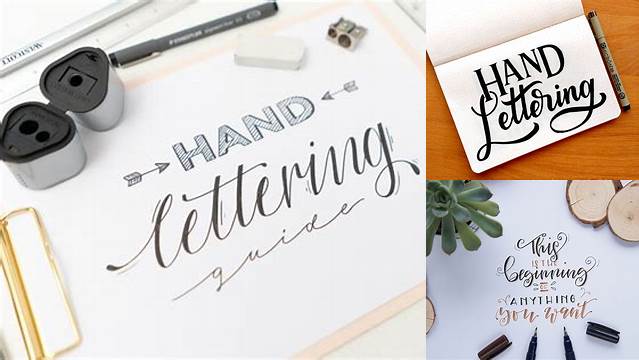
Hand Lettering Fonts: A Comprehensive Guide
Understanding the Appeal of Hand Lettering Fonts
Hey guys, let's dive into the amazing world of hand lettering fonts! You know, those gorgeous, artistic styles that make text look like it was meticulously drawn by hand. It’s not just about picking a font; it’s about evoking a feeling, a personality, and a sense of craft. In a digital age where everything can feel a bit uniform, hand lettering fonts offer a breath of fresh air. They bring warmth, authenticity, and a unique human touch to designs. Think about wedding invitations, custom logos, or even just a heartfelt quote you want to share online – the right hand lettering font can elevate the entire message. What’s so cool about them is their sheer variety. You’ve got elegant scripts that flow like a graceful dance, bold brush lettering that commands attention, quirky and playful styles that add a touch of fun, and vintage-inspired designs that transport you back in time. Each style tells its own story and sets a distinct mood. This is why designers and creatives are constantly drawn to them. They offer a way to break free from the rigid structure of typical digital fonts and inject a dose of personality and artistry. So, whether you're a seasoned designer looking to add some flair to your projects or a beginner just starting to explore the possibilities, understanding the diverse world of hand lettering fonts is your first step to creating truly memorable and engaging visuals. It’s all about finding that perfect visual voice that resonates with your audience and perfectly captures the essence of your message. Let’s get exploring!
Exploring Different Styles of Hand Lettering Fonts
So, we know hand lettering fonts are awesome, but let's break down the different vibes they give off, yeah? It’s like having a whole wardrobe of typefaces to choose from for any occasion. First up, we've got the script fonts. These are the divas, the elegant ones. They can be super formal, like a beautiful cursive wedding invitation, or more casual and bouncy, like something you’d doodle in your journal. Think swooping ascenders and descenders, delicate flourishes, and a general feeling of flow and grace. They’re perfect for adding a touch of romance or sophistication. Then there are the brush lettering fonts. These guys are bold and expressive. Imagine a paintbrush making thick and thin strokes, full of energy and movement. They can range from super clean and modern to more textured and distressed, giving a really dynamic and artistic feel. They’re fantastic for making a strong statement, like for a band logo or a motivational poster. Don't forget about display fonts, which is a broad category but often includes unique, stylized hand-drawn lettering meant to catch the eye. These are often playful, quirky, or have a very specific theme, like vintage signs or cartoonish styles. They're not usually for long blocks of text, but they absolutely shine when you need to highlight a title or a key phrase. And finally, let’s touch on monoline vs. variable stroke fonts. Monoline hand lettering has a consistent thickness throughout, giving it a clean, modern, or sometimes childlike feel. Variable stroke fonts, on the other hand, mimic real brush or pen strokes, with thick and thin variations, adding a lot more depth and naturalism. Understanding these categories helps you pick the exact right font to convey your message, guys. It’s all about matching the visual style to the emotional tone you want to achieve!
The Role of Hand Lettering Fonts in Branding
So, how do these amazing hand lettering fonts actually help build a brand, you ask? Well, they’re seriously powerful tools, guys! In branding, consistency is key, but so is personality. Hand lettering fonts offer a way to inject a unique and memorable character into a brand’s visual identity. Think about it: a brand wants to connect with its audience on an emotional level. A carefully chosen hand lettering font can instantly communicate trustworthiness, creativity, fun, luxury, or any number of other qualities. For small businesses or startups, a distinctive hand lettering font can make them stand out in a crowded market. It’s like giving your brand a signature. For instance, a bakery might use a warm, friendly brush script font for its logo and signage to convey a sense of homemade goodness. A high-end fashion label, on the other hand, might opt for an elegant, refined script font to exude sophistication and exclusivity. Even for larger corporations, hand lettering elements can be used in specific campaigns or for secondary branding to add a touch of human touch and approachability. It breaks up the corporate feel and makes the brand feel more relatable. Furthermore, the uniqueness of hand lettering means it's less likely to be confused with competitors. It helps create a visual language that is distinctly yours. So, when picking a hand lettering font for your brand, think about the core message you want to send. Is it playful? Serious? Artistic? Reliable? The font is one of the first things people notice, and it plays a huge role in shaping their perception of your business. It’s not just about looking pretty; it’s about strategic communication!
Tips for Using Hand Lettering Fonts Effectively
Now that we’ve gushed about how cool hand lettering fonts are, let’s talk about how to actually use them without making a mess of things, yeah? The biggest tip I can give you is: don't overdo it. Hand lettering fonts are often best used as accents or for display purposes. Think headlines, titles, logos, or short, impactful phrases. Trying to cram a whole paragraph into a fancy script font? Big mistake. It becomes incredibly difficult to read, and honestly, it looks a bit chaotic. Aim for clarity first. Pair your hand lettering font with a clean, simple sans-serif or serif font for body text. This contrast helps the hand lettering stand out and ensures readability. Imagine a beautiful, decorative script for your wedding invitation title, paired with a classic, easy-to-read serif for the details – perfect! Another crucial point is context. Does the font's style match the overall tone and message of your design? A super playful, cartoony hand lettering font probably won’t work for a serious legal document, right? Always consider your audience and the purpose of your design. Also, pay attention to kerning and spacing. Some hand lettering fonts, especially scripts, can have awkward gaps between letters or overlap too much. You might need to manually adjust the spacing (kerning) to make it look polished and professional. Many design programs allow you to do this. Finally, consistency is key in branding. If you’re using a specific hand lettering font for your logo, try to use it consistently across your marketing materials. This builds recognition and reinforces your brand identity. So, use them wisely, guys, and they'll make your designs sing!
The Artistry Behind Hand Lettering Fonts
When we talk about hand lettering fonts, we're really talking about a blend of art and typography, guys. It’s not just typing something out; it’s the deliberate creation of letterforms that possess a unique artistic quality. The beauty of hand lettering fonts lies in the imperfections and nuances that come from the human hand. Think about the subtle variations in stroke weight, the gentle curves, the occasional flourish – these elements are what give hand lettering its soul. Unlike digital fonts that are often generated from vectors and can sometimes feel sterile, hand lettering captures the energy and intention of the artist. Each letter is a small piece of art, carefully crafted to complement the others. This artistry is evident in the way different tools are used – from traditional dip pens and brushes to modern digital styluses. The choice of tool significantly impacts the final look, allowing for a vast spectrum of textures and styles. Some artists aim for a clean, almost illustrative look, while others embrace a more organic, textured feel, showing the grain of the paper or the bristles of the brush. This dedication to craft is what makes hand lettering fonts so captivating. They represent a conscious effort to move away from mass-produced uniformity and embrace individuality and expression. It’s a way for designers and brands to connect with their audience on a deeper level, conveying a sense of authenticity and care that is hard to replicate with standard digital type. The process often involves sketching, refining, digitizing, and careful editing, ensuring that the final font is not only beautiful but also functional. It’s a labor of love, and you can truly feel that artistry when you see it.
Exploring Vintage Hand Lettering Font Styles
Let's take a trip back in time, guys, and explore the charming world of vintage hand lettering fonts! These fonts just ooze nostalgia and character, perfect for projects that need a touch of old-world charm. Think about the signage on old storefronts, the lettering on antique packaging, or the elegant scripts found in early 20th-century advertisements – that’s the vibe we’re talking about. One prominent style within vintage lettering is Victorian script. These are often ornate, elaborate, and highly decorative, with lots of swashes and flourishes. They convey a sense of formality, luxury, and craftsmanship, often seen in formal invitations or high-end product branding from that era. Another popular vintage style is mid-century modern lettering. This often features cleaner lines, geometric shapes, and a sense of optimism and futuristic flair (for its time!). Think of diner signs, advertisements for appliances, or movie posters from the 1950s and 60s. They tend to be bolder and more graphic than Victorian scripts. Art Deco lettering is another distinct vintage style, characterized by its geometric patterns, symmetry, and bold, often condensed letterforms. It has a glamorous, sophisticated, and sometimes industrial feel, often seen in architectural designs and luxury branding from the 1920s and 30s. You also find old Western or saloon-style lettering, which is typically bold, blocky, and sometimes slightly rough around the edges, evoking images of the Wild West. Using these vintage hand lettering fonts can instantly give your project a unique personality and a sense of history. They’re fantastic for creating themed events, retro branding, or any design where you want to evoke a sense of the past. Just remember to pair them with other elements that complement the vintage aesthetic to really make them pop!
The Impact of Hand Lettering Fonts on Readability
Okay, so we love the look of hand lettering fonts, but let's be real, guys: how easy are they to read? This is a super important consideration, right? The impact of hand lettering fonts on readability really depends on the specific style and how you use it. Generally, highly decorative or complex script fonts can be challenging to read, especially in smaller sizes or for longer blocks of text. Think about those super elaborate Victorian scripts with tons of flourishes – beautiful, yes, but try reading a whole page of that! It’s a recipe for eye strain. On the other hand, many hand lettering fonts are designed with readability in mind. Think of brush scripts that have clear, distinct letterforms, or monoline styles that are clean and straightforward. These can be perfectly legible. The key is to choose wisely and use them appropriately. For body text, where clarity is paramount, it’s usually best to stick with more traditional, highly legible fonts. Hand lettering fonts tend to shine as display fonts – used for headlines, titles, logos, and short, impactful statements where their visual appeal can be appreciated without sacrificing comprehension. When selecting a hand lettering font, always test it out. Read a few words, then a sentence. Does it flow well? Are the letters distinct? Is there anything that looks too similar or gets lost? If you’re using it for a brand, ask a few people to read it aloud. This feedback loop is invaluable. So, while hand lettering fonts can sometimes pose readability challenges, understanding their strengths and weaknesses, and using them strategically, allows you to harness their visual power without alienating your audience.
Choosing the Right Hand Lettering Font for Your Project
Alright, choosing the perfect hand lettering font can feel like a big decision, but let’s break it down, guys. It’s all about matching the font to the vibe and purpose of your project. First, consider the mood and tone. Are you going for elegant and sophisticated, fun and playful, rustic and handmade, or modern and chic? Each hand lettering style evokes different emotions. A delicate, flowing script is great for weddings, while a bold, textured brush font might be better for a fitness brand. Second, think about readability. As we just talked about, some fonts are easier to read than others. If your project involves a lot of text, opt for a cleaner, more straightforward hand lettering style, or use it only for headings and pair it with a legible body font. For logos or short phrases, you can often get away with more decorative styles. Third, consider the application. Where will this font be used? On a website? A t-shirt? A business card? A large billboard? A font that looks amazing on a screen might not print well, or a very thin font might disappear on a busy background. Test it out in the intended context if possible. Fourth, look at the details. Check out the full character set, including punctuation and numerals. Do they match the style? Are there multiple weights or styles available (like bold or italic versions)? The more versatile the font, the better. Finally, trust your gut! Sometimes, a font just feels right. Browse through collections, experiment, and see what resonates with you and your project’s goals. It’s a blend of strategic thinking and creative intuition, guys. Nail this, and your design will instantly level up!
The Difference Between Hand Lettering and Calligraphy Fonts
This is a common point of confusion, guys, so let's clear it up: what’s the deal with hand lettering fonts versus calligraphy fonts? While both involve beautiful letterforms, they stem from different processes and often result in different aesthetics. Calligraphy is fundamentally about the act of writing. It’s done with a calligraphy pen or brush, and the thickness of the stroke is determined by the direction and pressure of the pen's movement. Calligraphy is typically written in a single, fluid motion for each letter. Think of elegant script handwriting. You can't really rearrange calligraphy once it’s written; it’s a direct inscription. Hand lettering, on the other hand, is the art of drawing letters. Artists can sketch, erase, redraw, and perfect each letterform. They might use different tools, including regular pens, markers, or even digital styluses, and the thicks and thins are often added deliberately through shading or multiple strokes, rather than being solely dependent on the pen's angle. Hand lettering allows for a much wider range of styles – from bold, graphic designs to intricate illustrative letterforms. So, when you see a font labeled